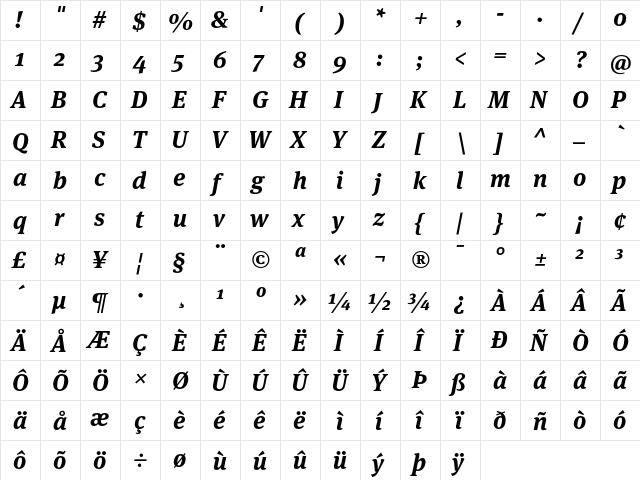
MetaSerif-BoldIta Regular
Design Context for MetaSerif-BoldIta Typeface
MetaSerif-BoldIta carries the refined structure of traditional serif typography, with bracketed terminals and considered proportions that communicate credibility and craft. Its bold stroke weight gives it real presence on the page.
Pro Tip: Set MetaSerif-BoldIta with slightly loose tracking in headlines to let each letterform's detail read clearly at display sizes.